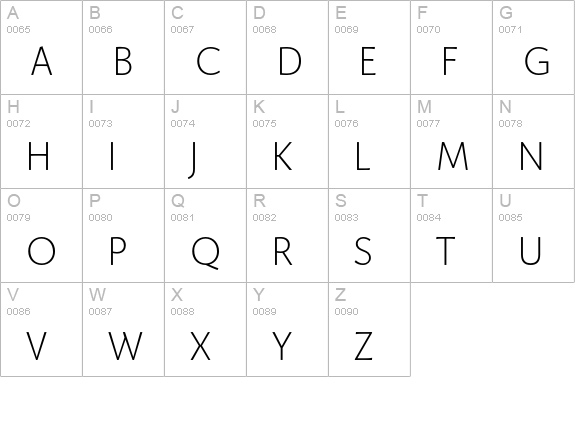
Giacomo LT Light is a refined, elegant variant in the Giacomo typeface family \xE2\x80\x94 well suited to elegant body text, refined sub-headings, and luxury branding.
The Giacomo LT Light font is a modern and elegant typeface that exudes sophistication and style. Its sleek lines and graceful curves make it perfect for a wide range of design projects, from branding to editorial layouts. The light weight of the font adds a touch of delicacy and refinement to any text it is applied to. Best of all, the Giacomo LT Light font is completely free to use! You can download it at FontsMarket.com and start incorporating its timeless beauty into your designs today. Whether you're working on a website, a print advertisement, or a social media graphic, this versatile font will elevate your project to new heights. Don't miss out on this incredible opportunity to enhance your work with the Giacomo LT Light font - download it now and see the difference it can make!